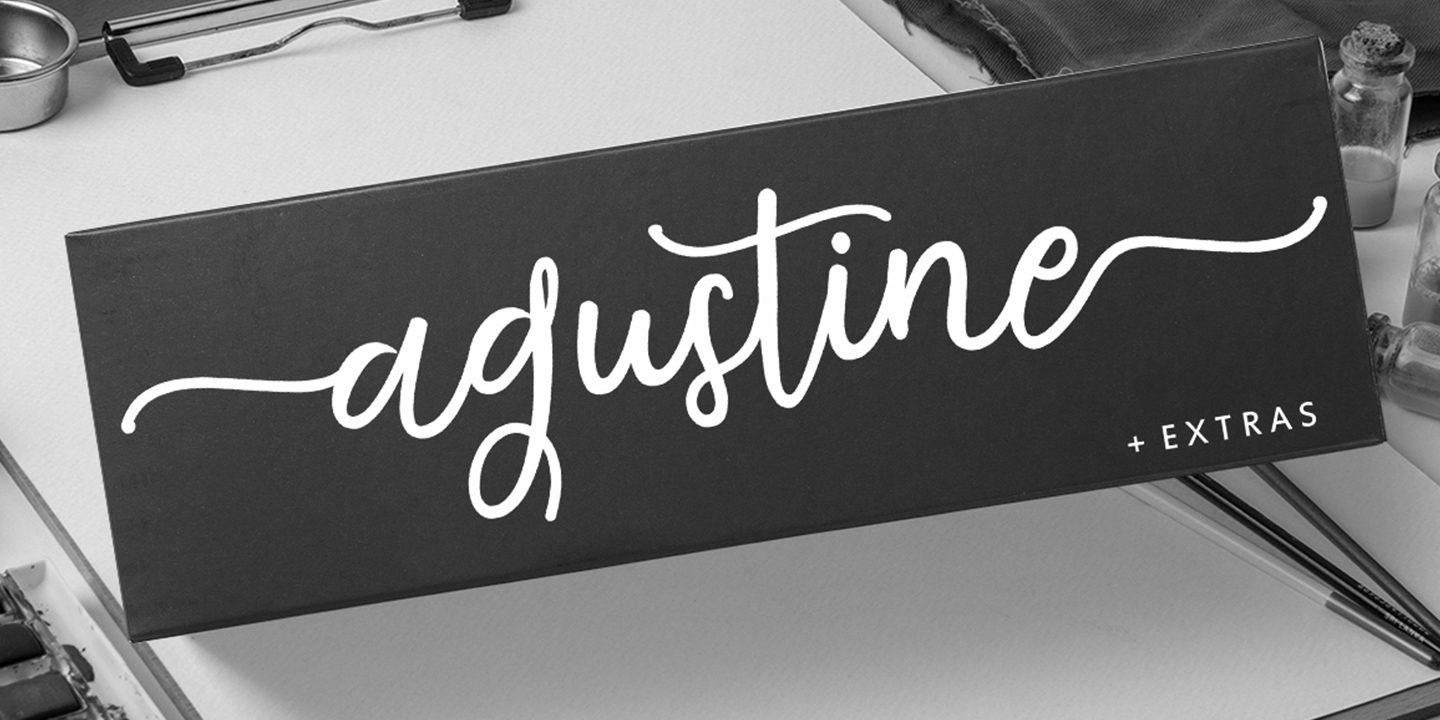
Agustine Script is a dingbat and script font family. This typeface has two styles and was published by Area Type Studio.
A two font family. This contains every font in the Agustine Script Family.
Agustine Script + Extras is a modern calligraphy font. Its characters dance along the baseline and have been given an elegant touch.
The family includes Opentype features with stylistic alternates, ligatures and multiple language support. It can be used for various purposes.such as logos, wedding invitation, heading, t-shirt, letterhead, signage, lable, news, posters, badges etc.